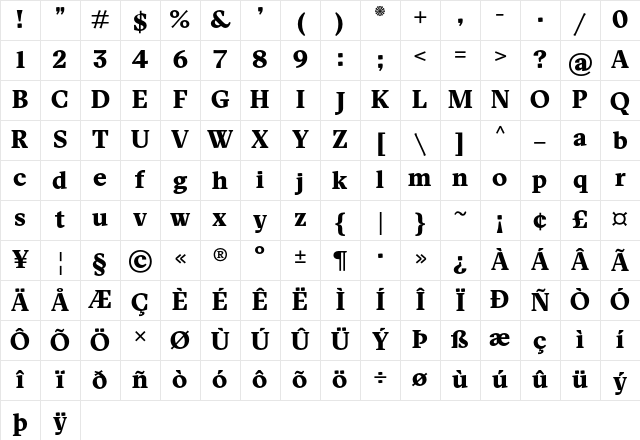
Complete FK Roman Text Black glyph index. Displaying only characters natively supported by FK Roman Text Black font.
FK Roman Text is a composed and adaptable typeface that performs quietly and consistently across a wide range of design contexts.